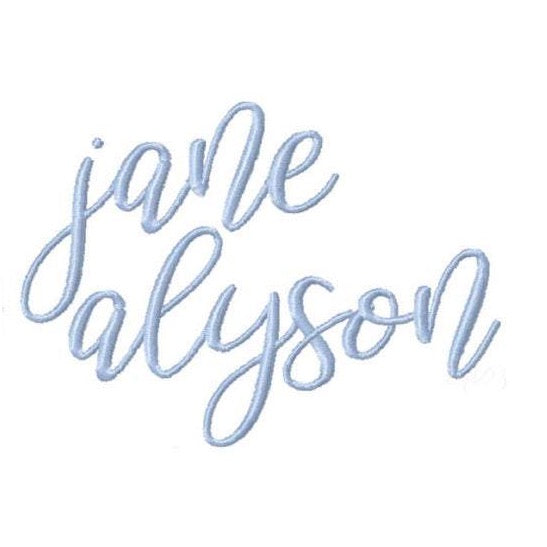
Jane Alyson Modern Bouncey Embroidery Font Package
Unlock your creativity with the Jane Alyson Modern Bouncey Embroidery Font Package, featuring 52 uppercase and lowercase letters alongside 26 right and 26 left letters for versatile monogramming options. This font package is designed to work seamlessly with a variety of embroidery machines, offering sizes of 1", 1.5", 2", 2.5", and 3" for all your project needs.